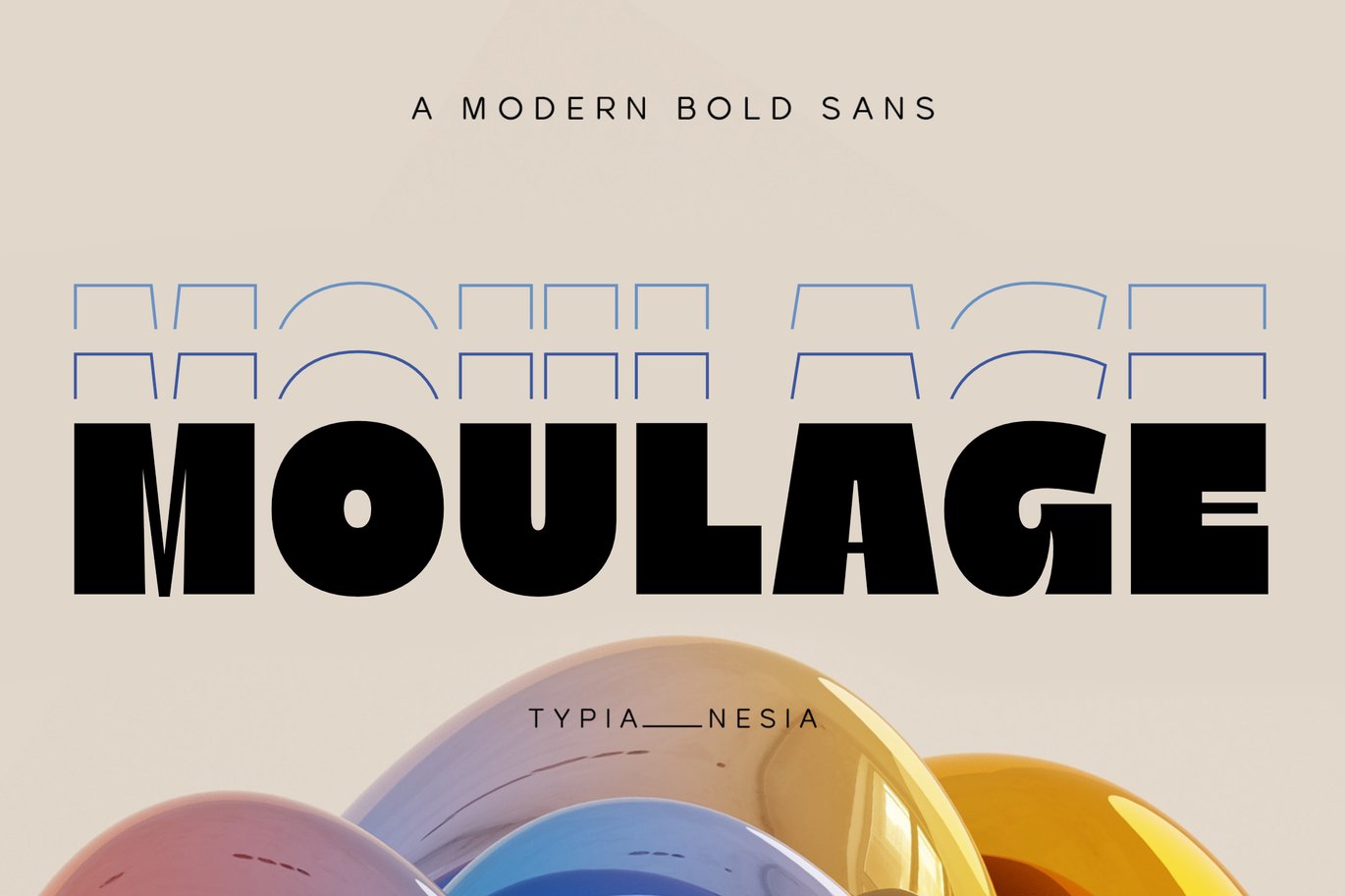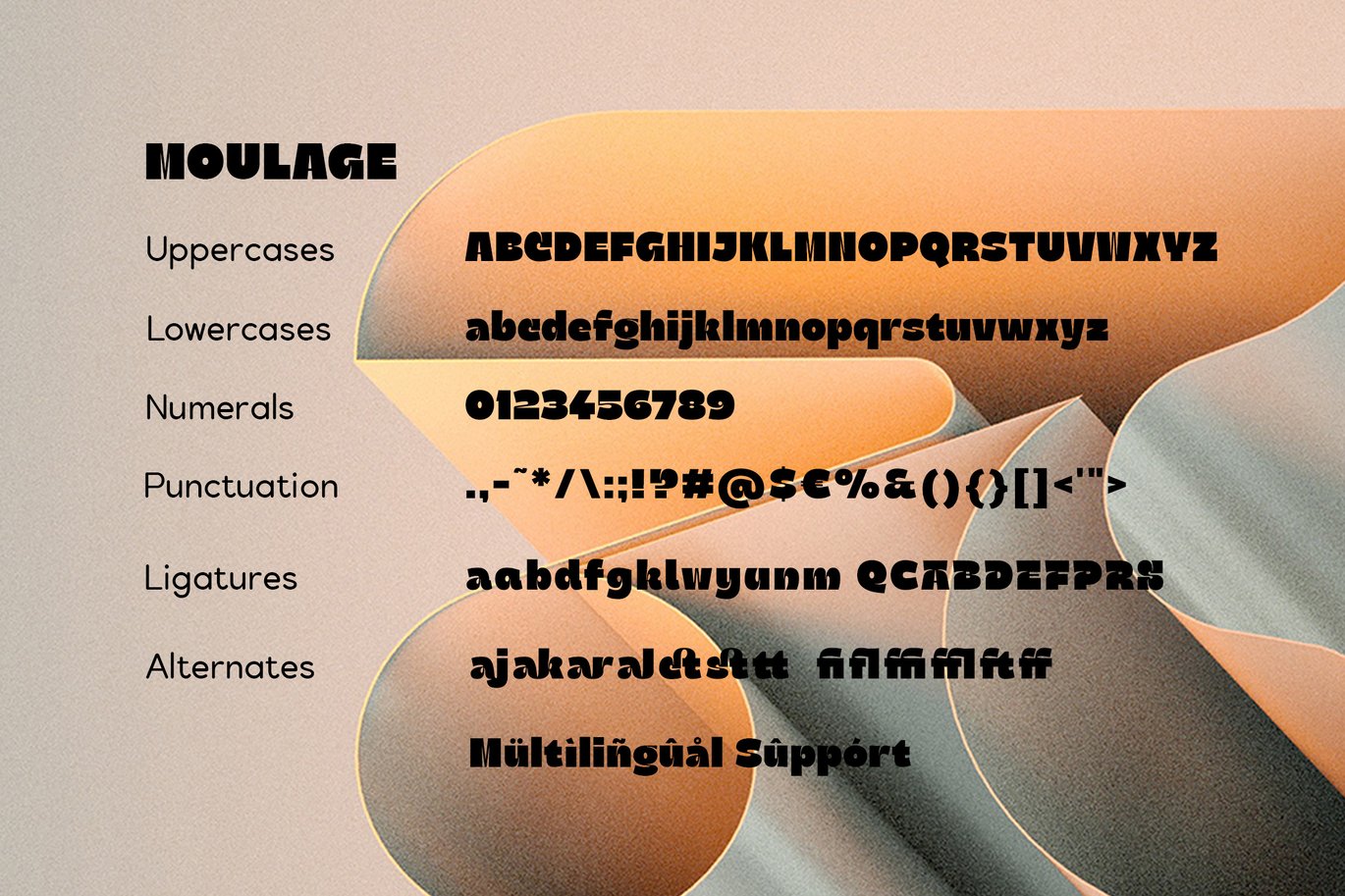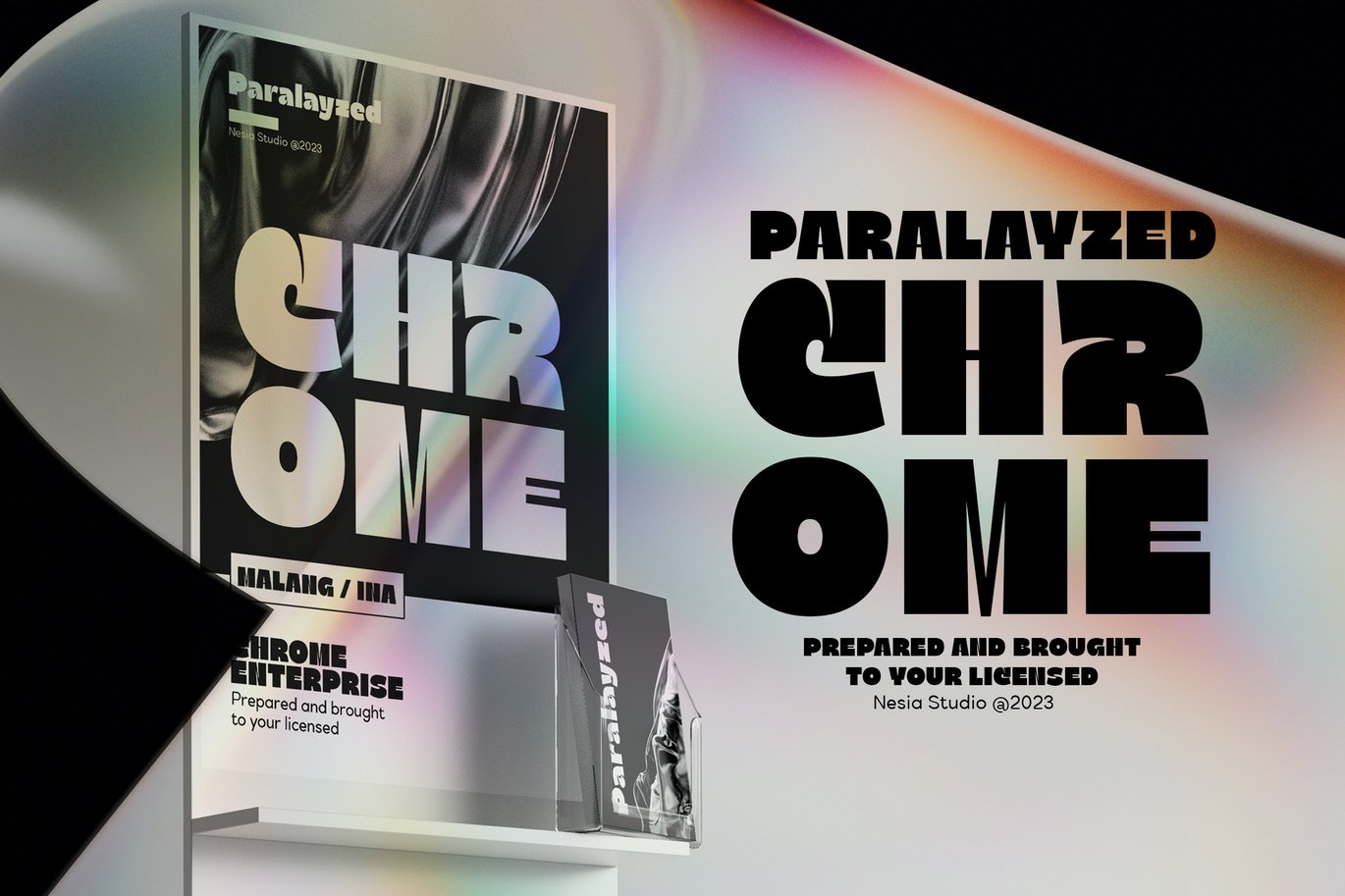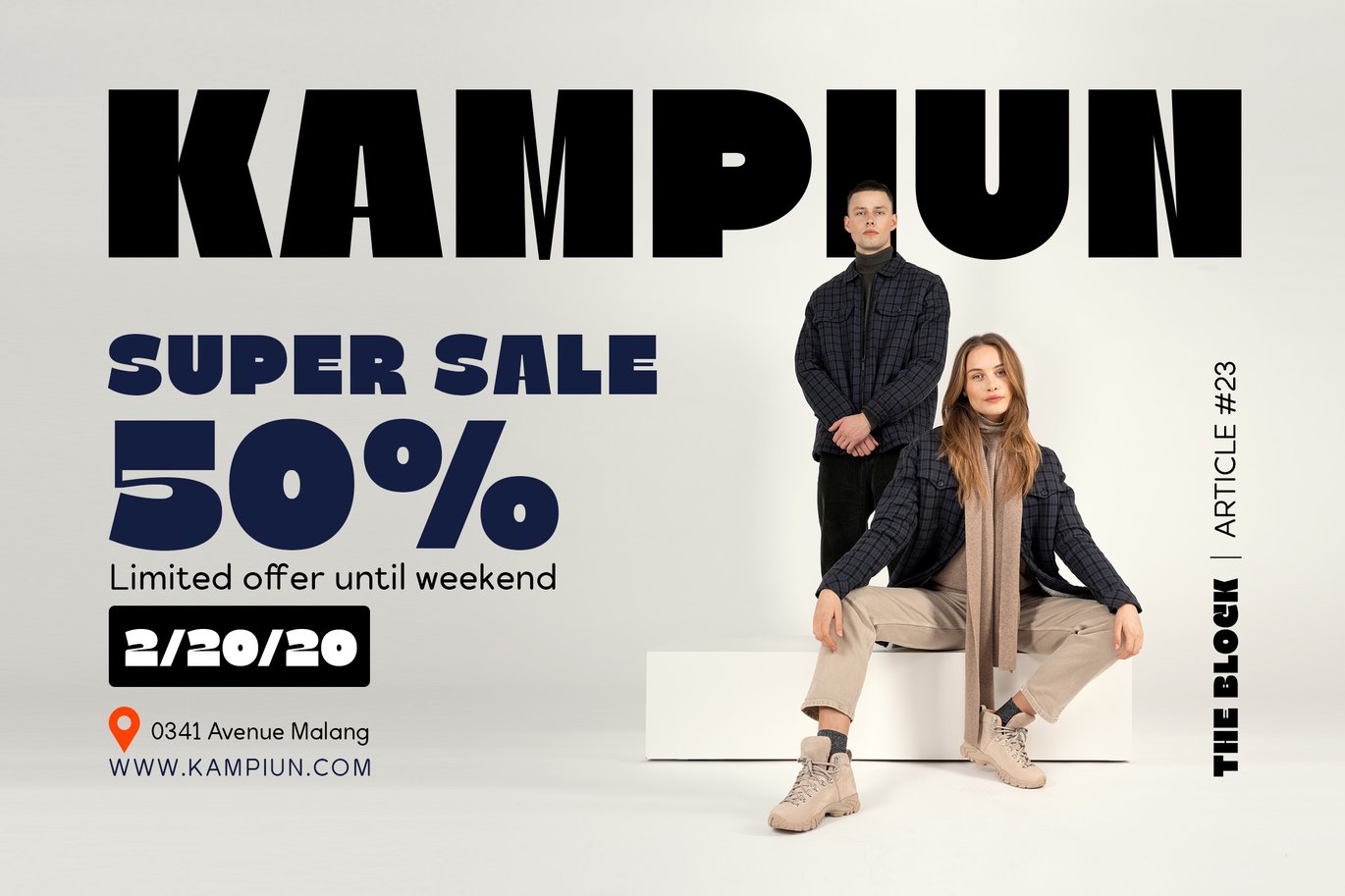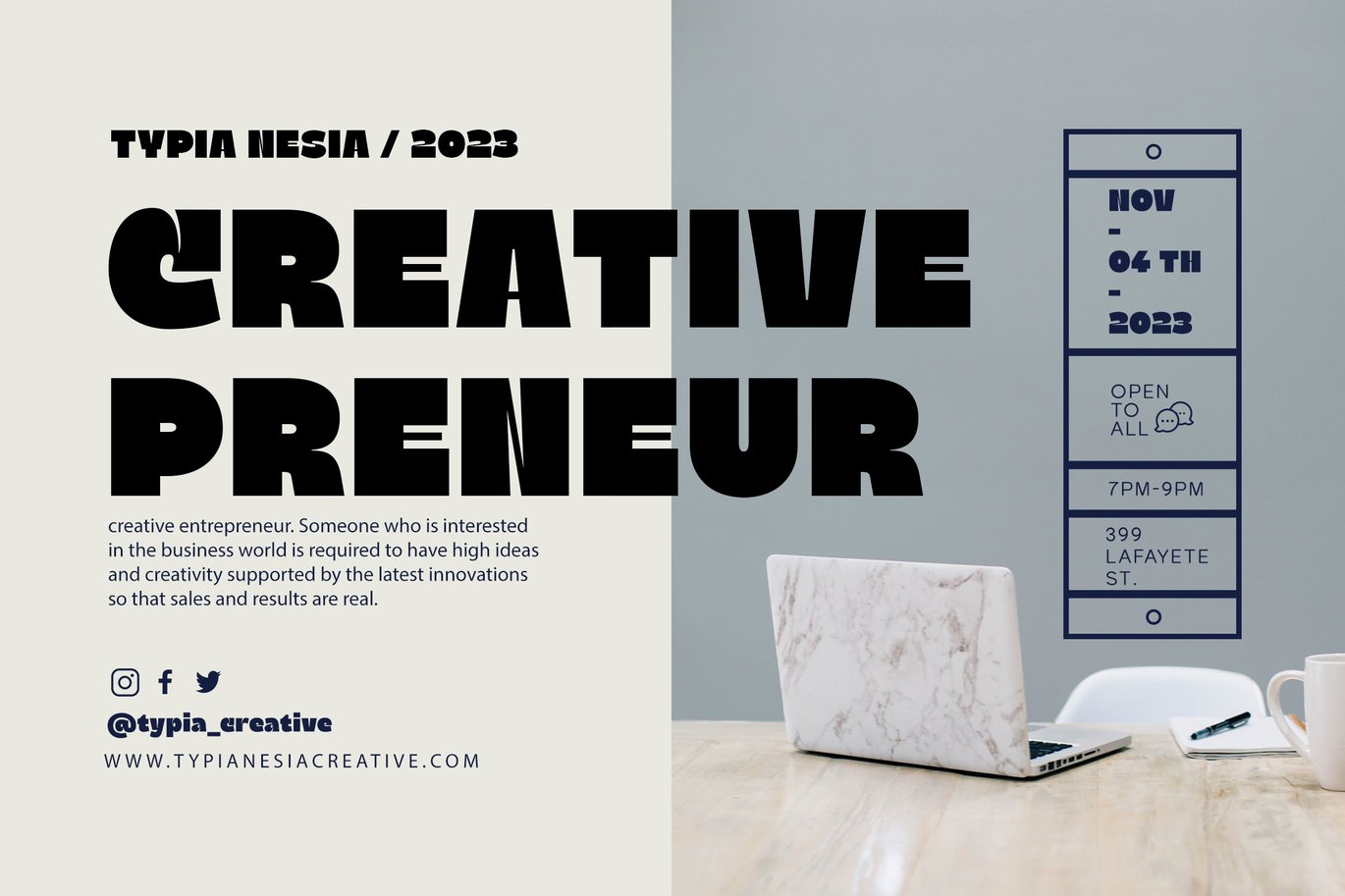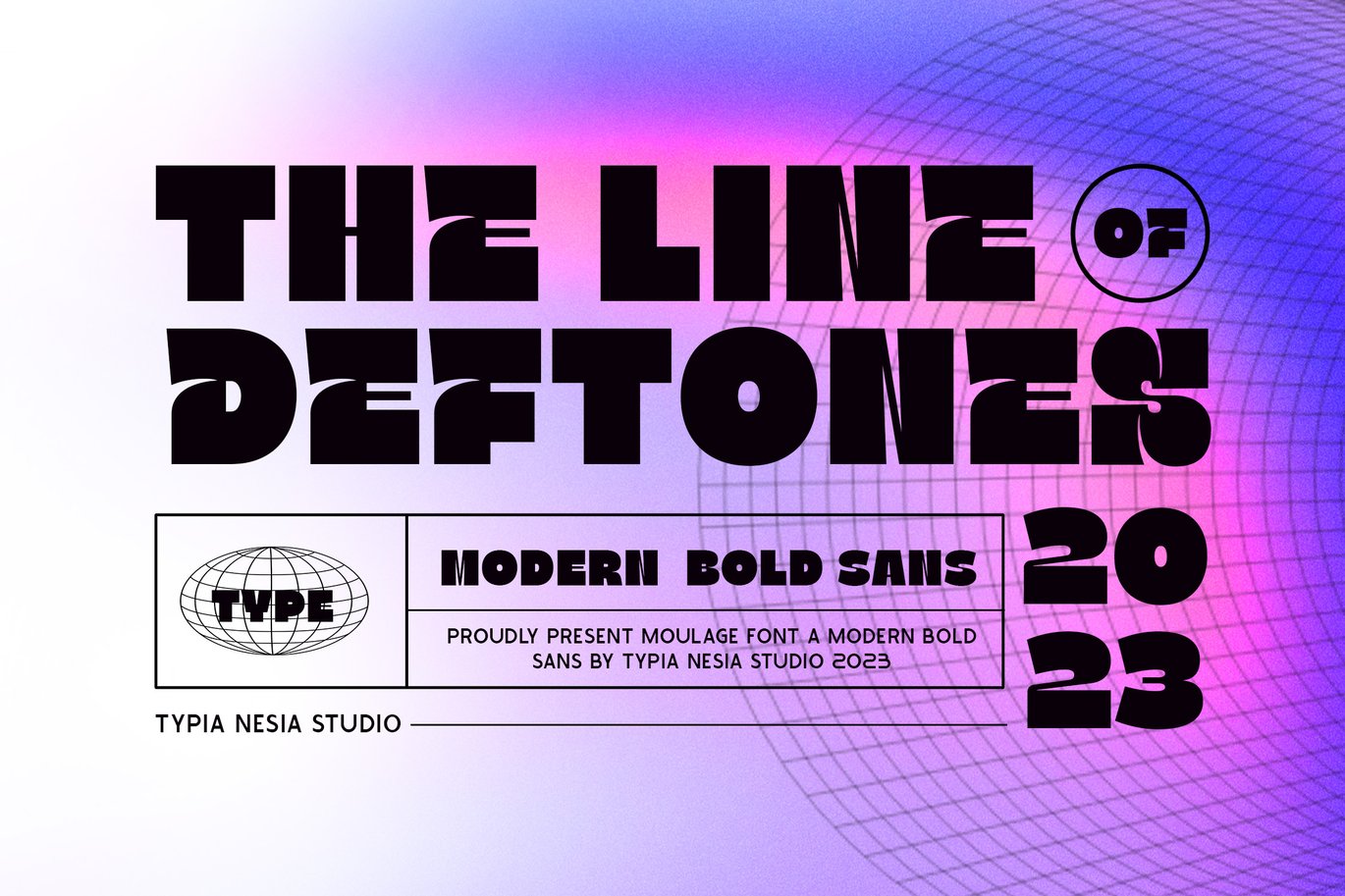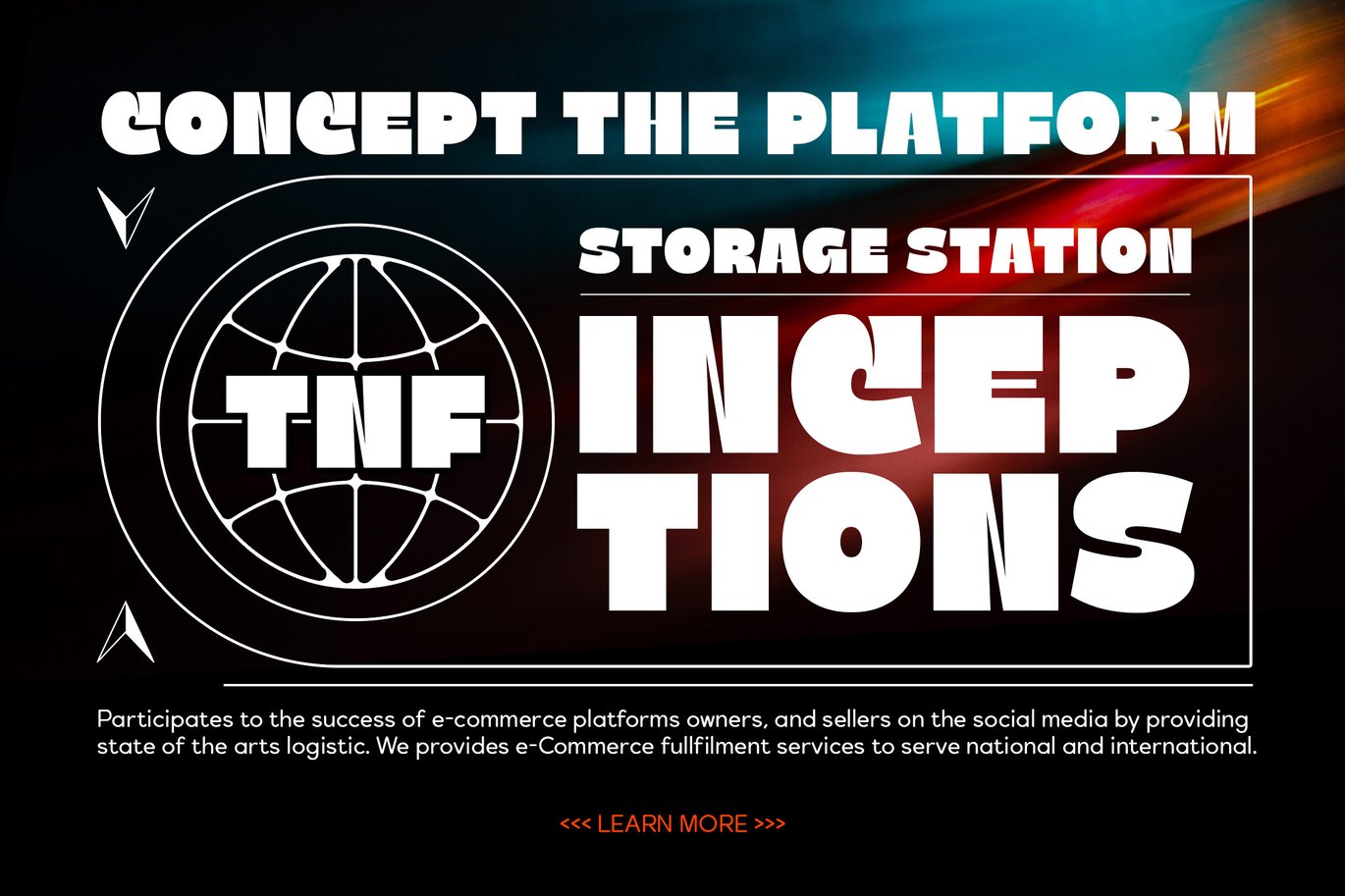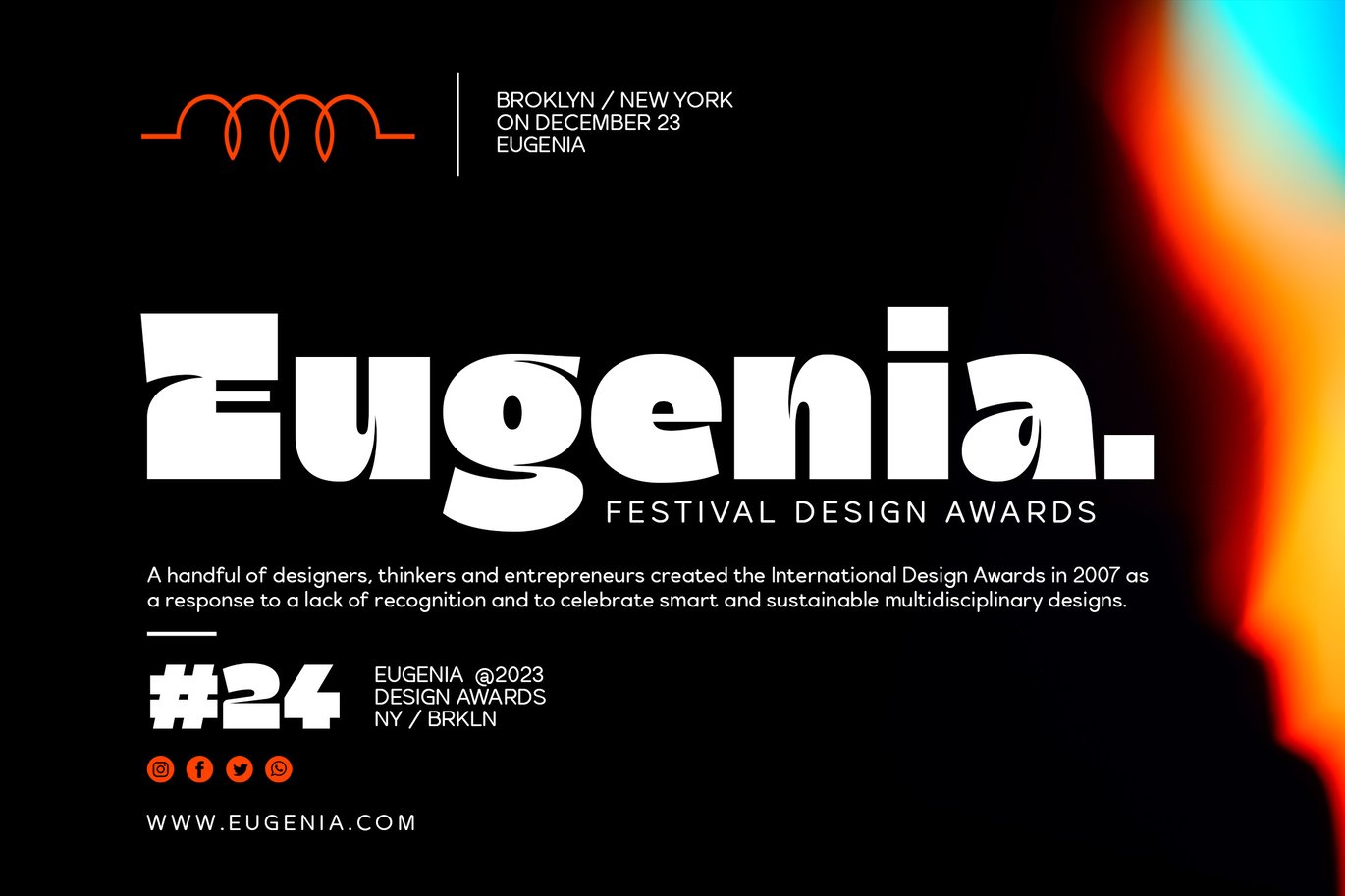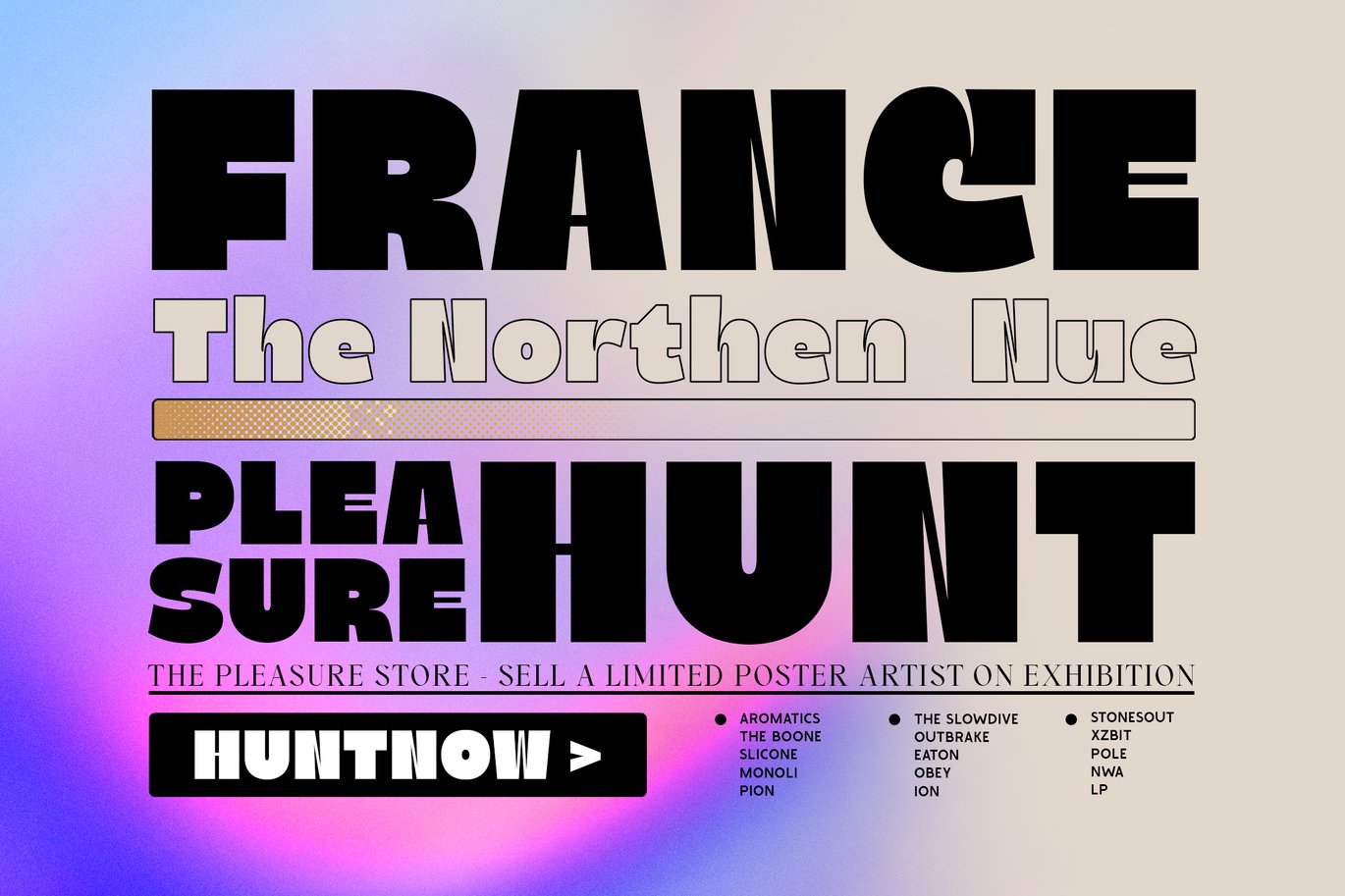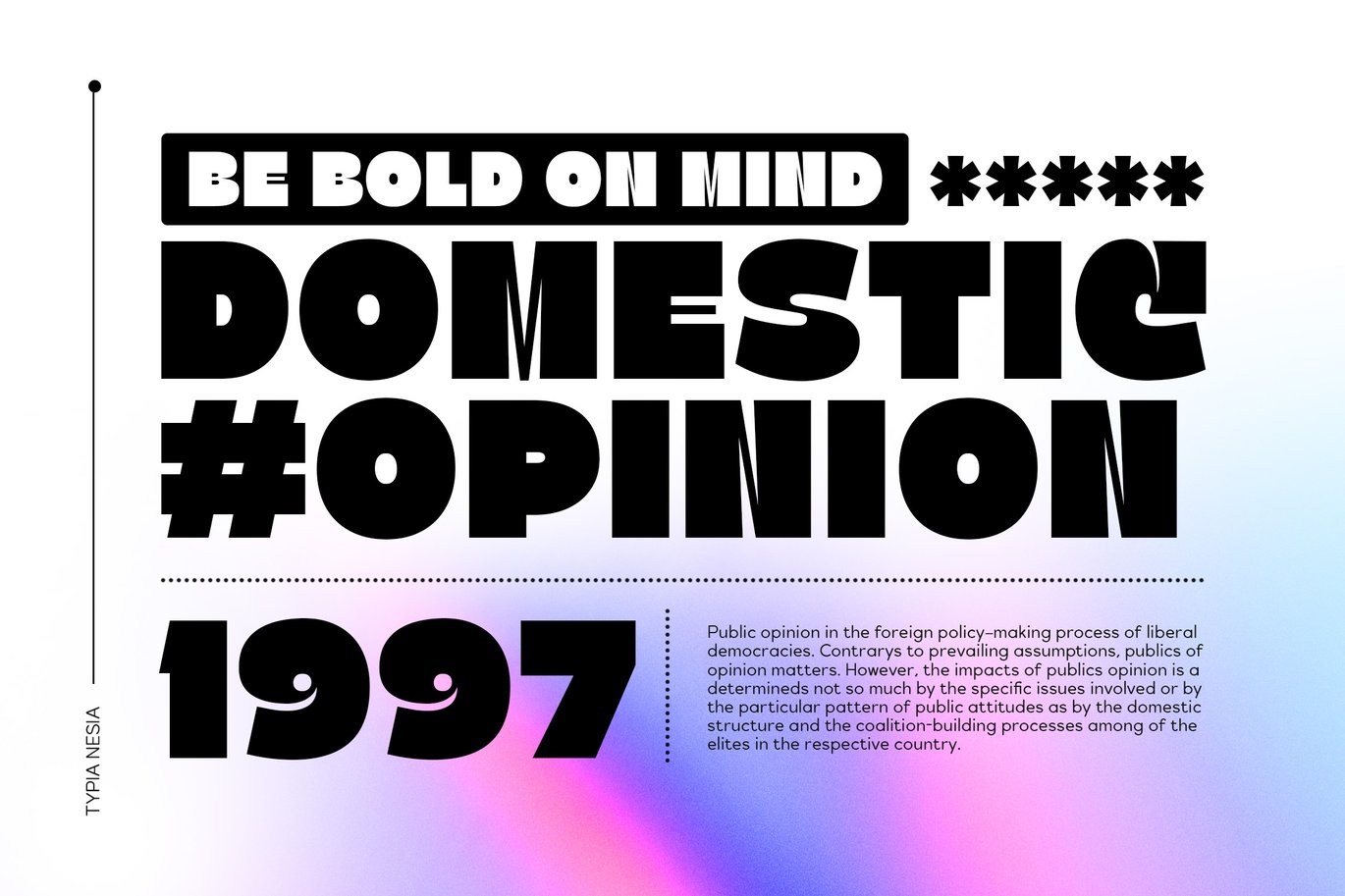
Moulage – Logo Branding Font – Sport Game Sans
Moulage Sans – A Modern Bold and Dynamic Display Font for Sports, Game and Active Brand / Logo
Moulage Font is a stylish and modern bold sans-serif typeface. With its bold appearance, it is ideal for creating eye-catching headlines and graphic designs. This typeface is suitable for various design projects such as branding, packaging, advertising, and more. The font has a versatile style that can be used in both web and print applications. Its modern design and expanded style make it a standout choice for designers looking to add boldness to their designs.
Typia Nesia Studio